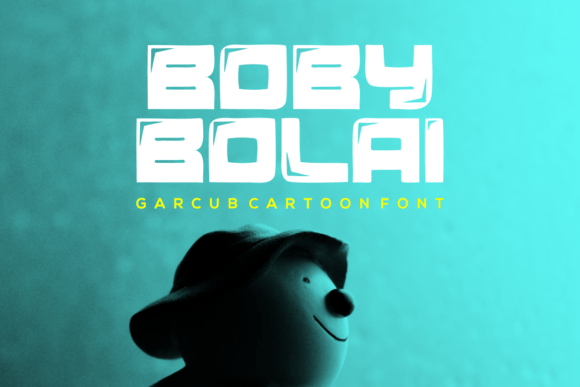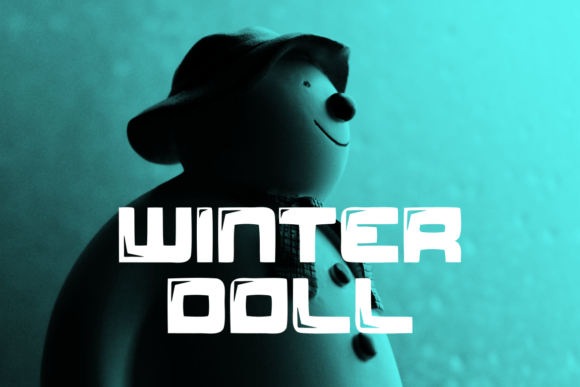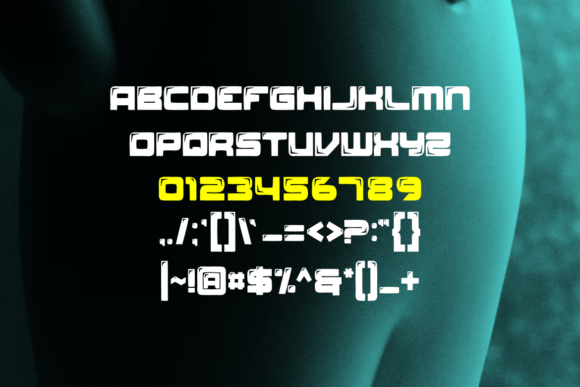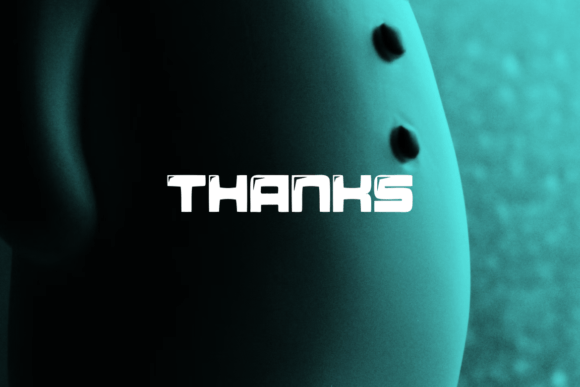
Garcub Font: The Ultimate Display Font for Bold and Authentic Designs
In the world of typography, fonts play a crucial role in conveying the tone and personality of a brand. For designers and crafters looking for a bold and authentic display font, Garcub Font is an excellent choice. This cartoon font has gained popularity for its versatility and wide range of applications, from logo design to t-shirt printing, esports, and more.
What is Garcub Font?
Garcub Font is a display font designed to make a statement. Its bold and authentic style makes it perfect for projects that require a strong visual impact. The font’s cartoon-inspired design gives it a playful and fun feel, making it suitable for a variety of creative projects.
Key Features of Garcub Font
- Bold and Authentic Style: Garcub Font boasts a bold and authentic style that grabs attention and makes a lasting impression.
- Cartoon-Inspired Design: The font’s cartoon-inspired design gives it a playful and fun feel, making it perfect for projects that require a lighthearted touch.
- Versatile and Adaptable: Garcub Font is suitable for a wide range of contexts, from logo design to t-shirt printing, esports, and more.
- Easily Readable: Despite its bold style, Garcub Font is easily readable, making it perfect for headlines, titles, and short texts.
Use Cases for Garcub Font
Garcub Font is an incredibly versatile font that can be used in various creative projects. Here are some of the most popular use cases:
- Logo Design: Garcub Font is perfect for creating bold and memorable logos that make a lasting impression.
- T-Shirt Printing: The font’s bold style and playful feel make it ideal for t-shirt printing, especially for designs that require a fun and casual touch.
- Esports: Garcub Font’s strong and authentic style makes it a popular choice for esports branding, including team logos, jerseys, and marketing materials.
- Social Media Graphics: The font’s bold style and easy readability make it perfect for social media graphics, including Facebook posts, Instagram stories, and Twitter headers.
- Advertising and Marketing: Garcub Font can be used in advertising and marketing materials, such as billboards, flyers, and brochures, to grab attention and convey a bold message.
Why Choose Garcub Font?
With so many fonts available, why choose Garcub Font? Here are some reasons why designers and crafters prefer Garcub Font:
- Unique and Distinctive: Garcub Font has a unique and distinctive style that sets it apart from other fonts.
- High-Quality Design: The font is designed with high-quality craftsmanship, ensuring that it looks great in any context.
In conclusion, Garcub Font is an excellent choice for designers and crafters looking for a bold and authentic display font. Its versatility, readability, and unique style make it perfect for a wide range of creative projects, from logo design to t-shirt printing, esports, and more. With its high-quality design and ease of use, Garcub Font is a valuable addition to any design toolkit.